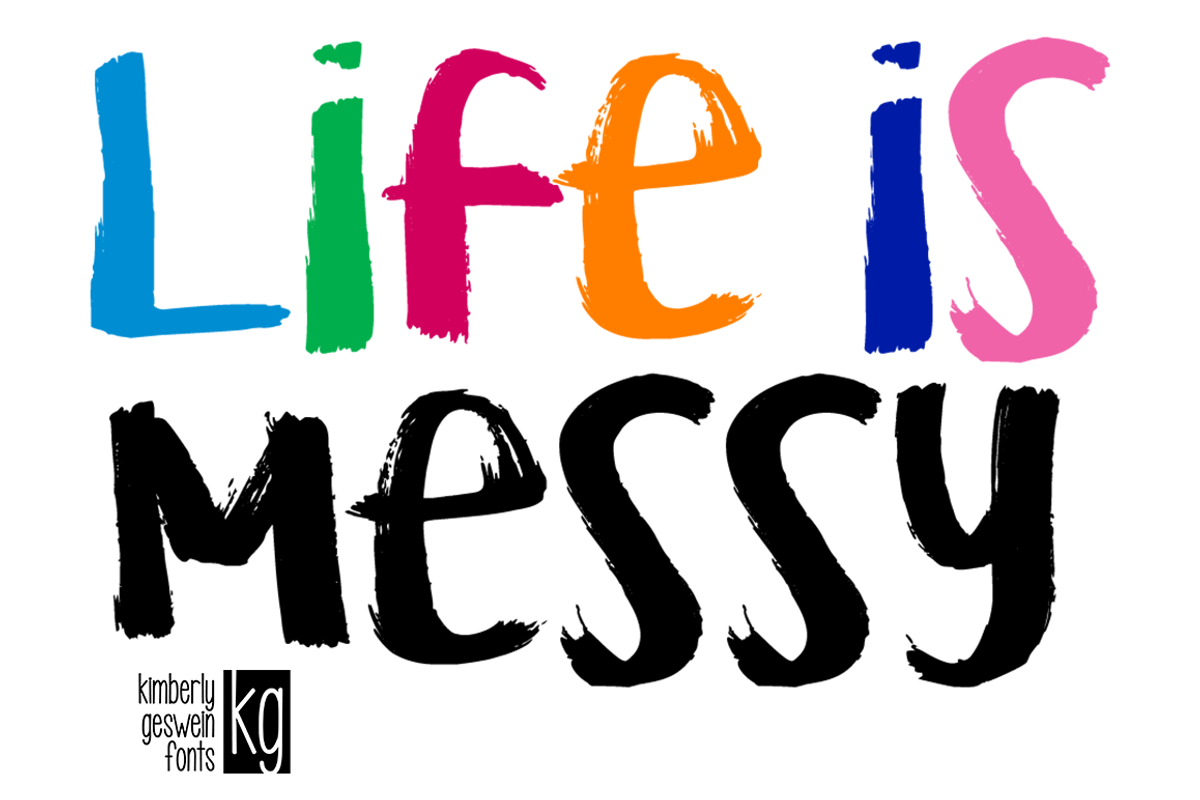
KG Lifeis Messy Free Download
KG Lifeis Messy Font Free Download
The KG Lifeis Messy Font Free Download brings a playful and whimsical touch to your designs with its unique, hand-drawn style. Perfect for adding personality to your projects, this font is ideal for creating custom quotes, social media posts, and fun branding materials. Its quirky, irregular letterforms give it an authentic, carefree vibe that’s perfect for projects that need a bit of character. Please note, for commercial use, you will need to purchase a license. However, you can easily test the font by downloading the KG Lifeis Messy Font Free Download for free. Whether you're working on personal or business projects, this font will bring a lighthearted and creative edge to your designs. Download the KG Lifeis Messy Font Free Download today and add a fresh, fun twist to your typography.